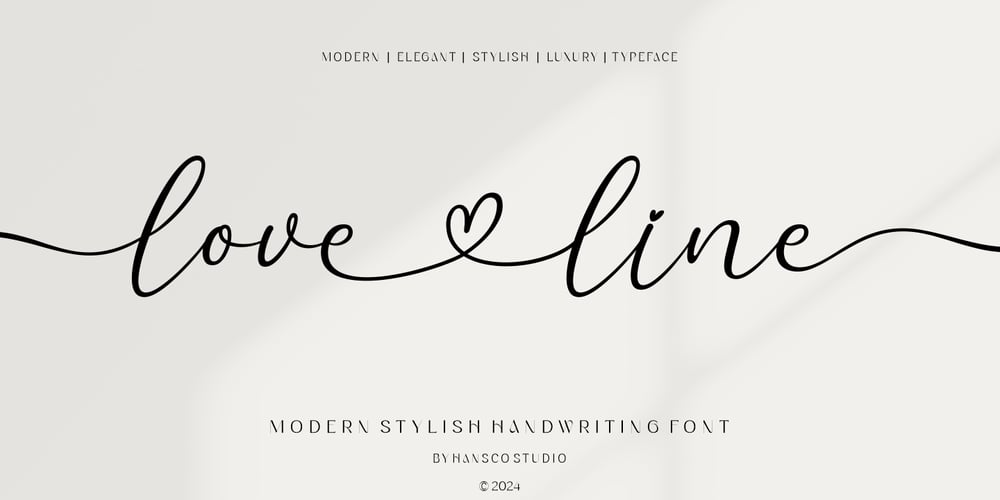
Love Line Font Family was designed by Burhan Afif and published by HansCo. Love Line contains 1 styles and family package options. Love Line Font is a clean and modern handwriting font carefully created with a touch of elegance. Whether you’re looking for fonts for Instagram or calligraphy scripts for DIY projects, this font will turn any creative idea into a true piece of art!. This font is perfect also for creating print templates like posters, branding, quotes, blog titles, fashion, invitations, greeting cards, business cards, clothing, stationery or anything else. Comes with a full uppercase, lowercase, numbers, punctuation and with extensive language support, it’s going to be a very usable addition to your project. Masterfully designed to become a true favorite, this font has the potential to bring each of your creative ideas to the highest level. Use this Love Line Font to add that special awesome elegant calligraphy touch to any design idea you can think of!.